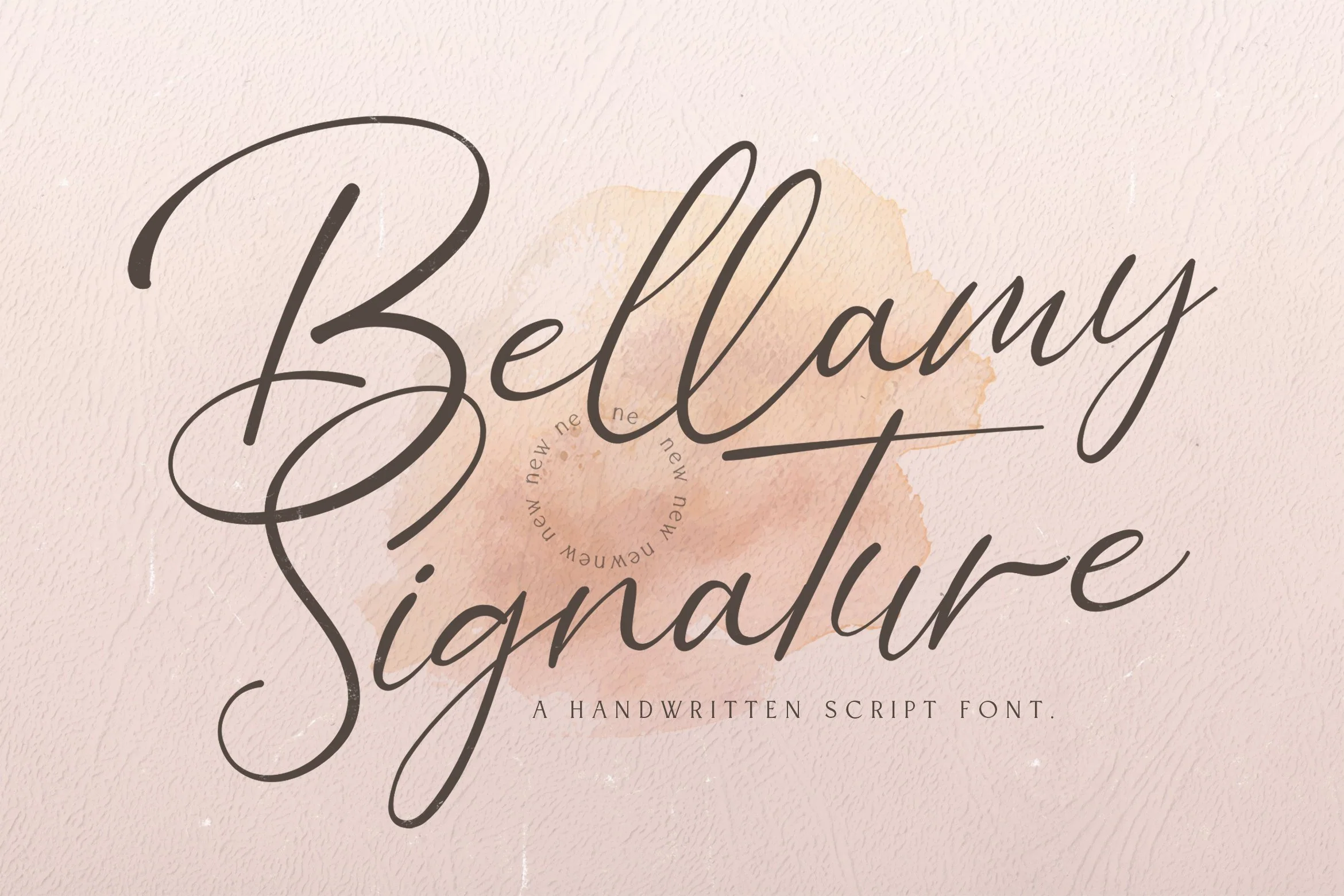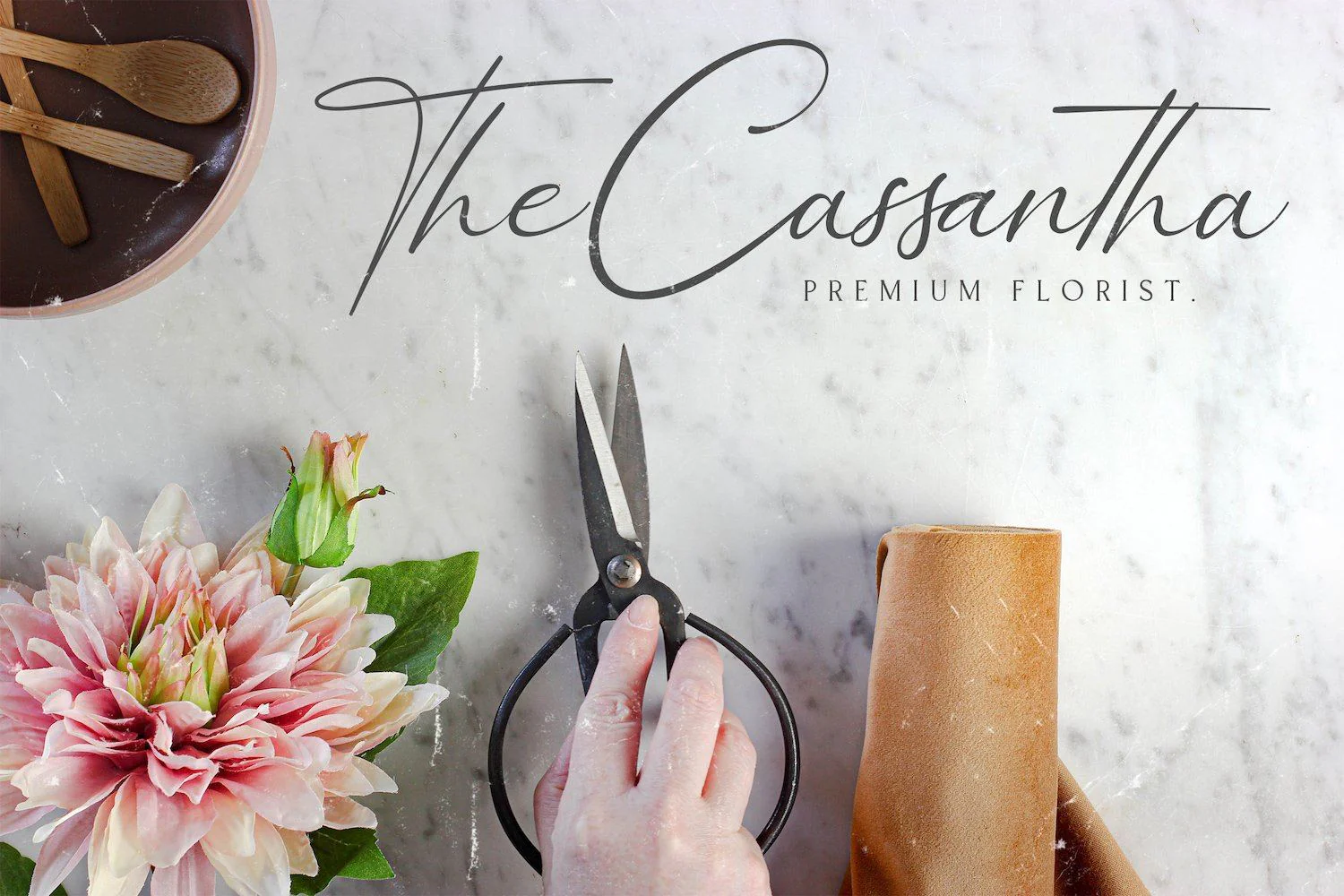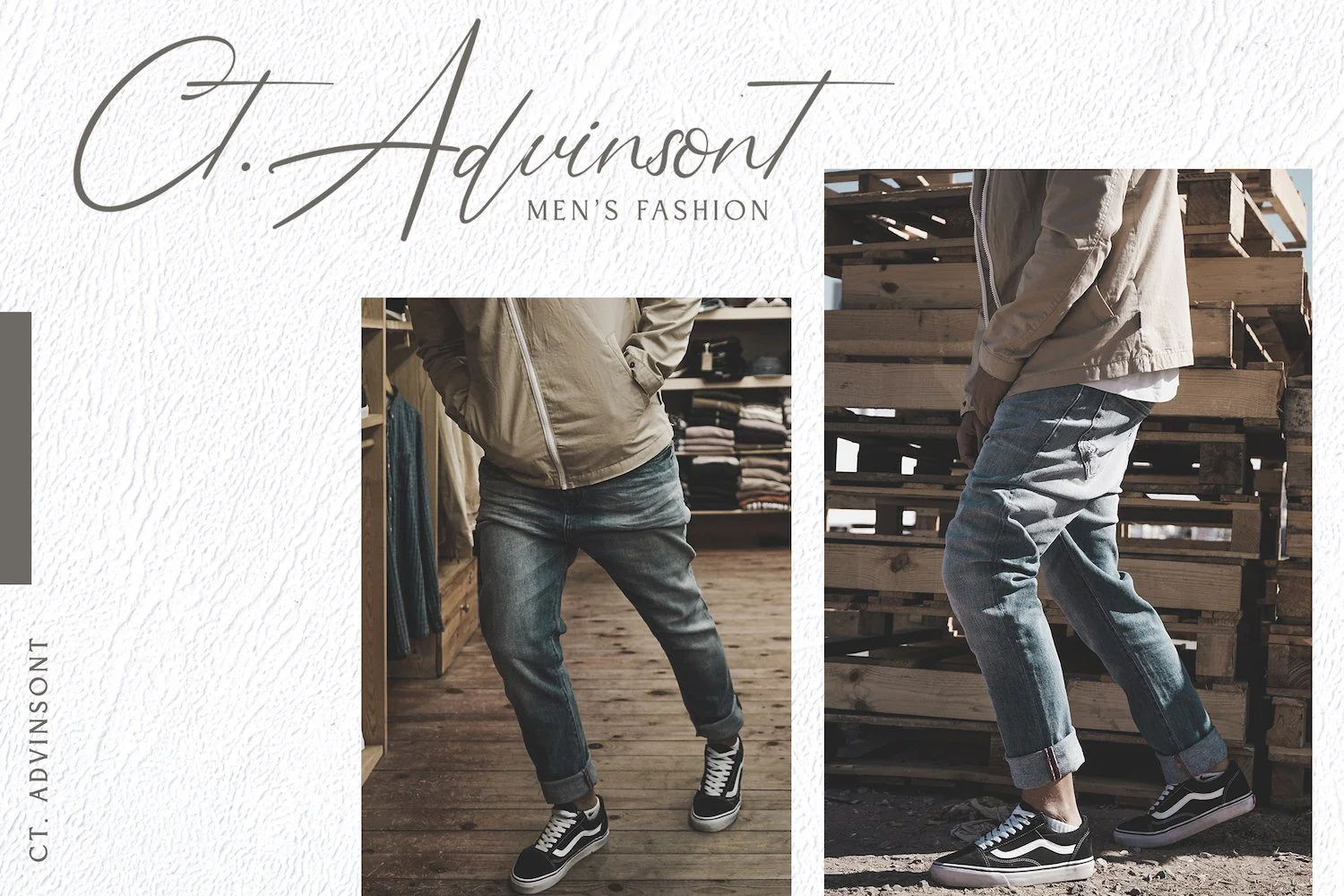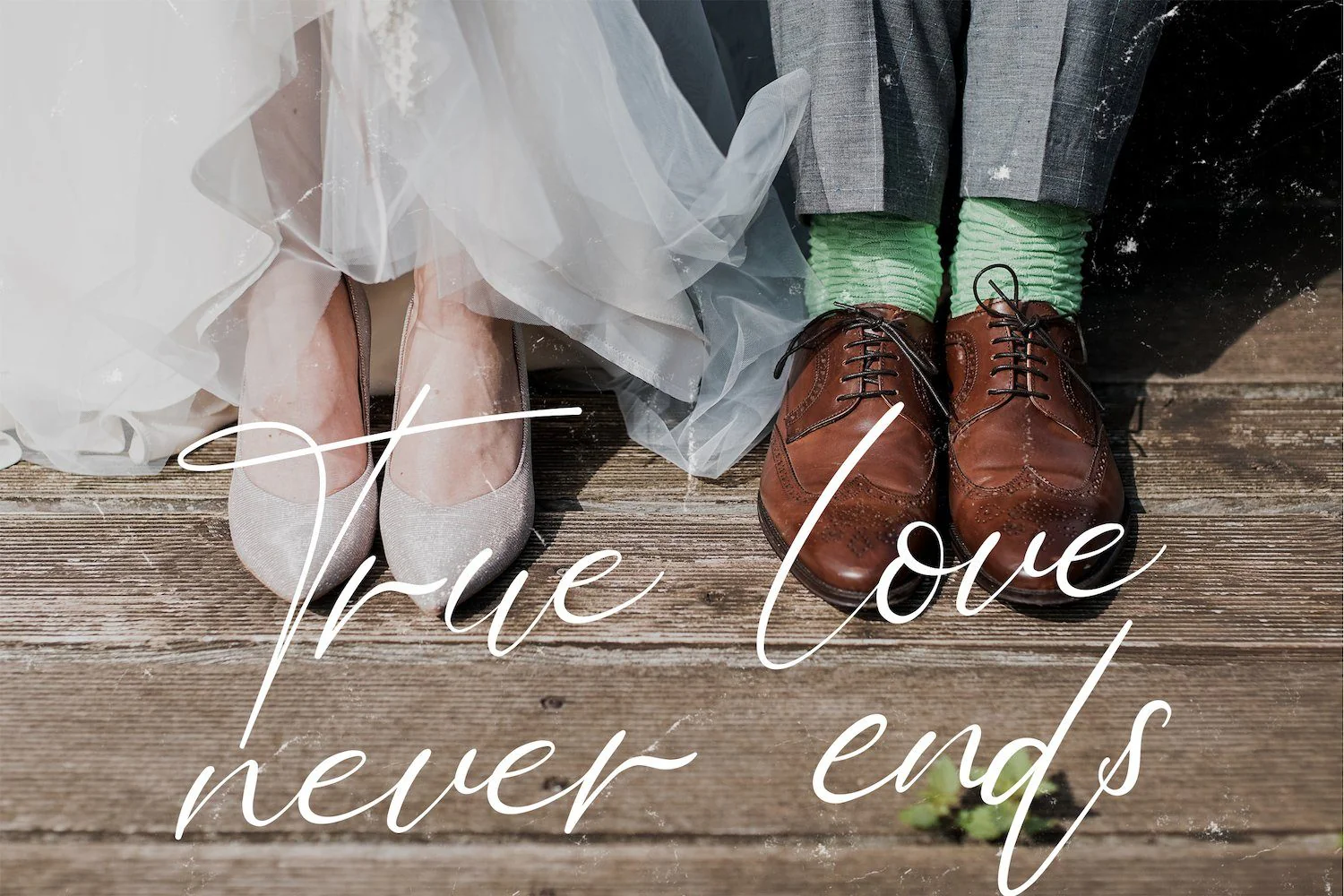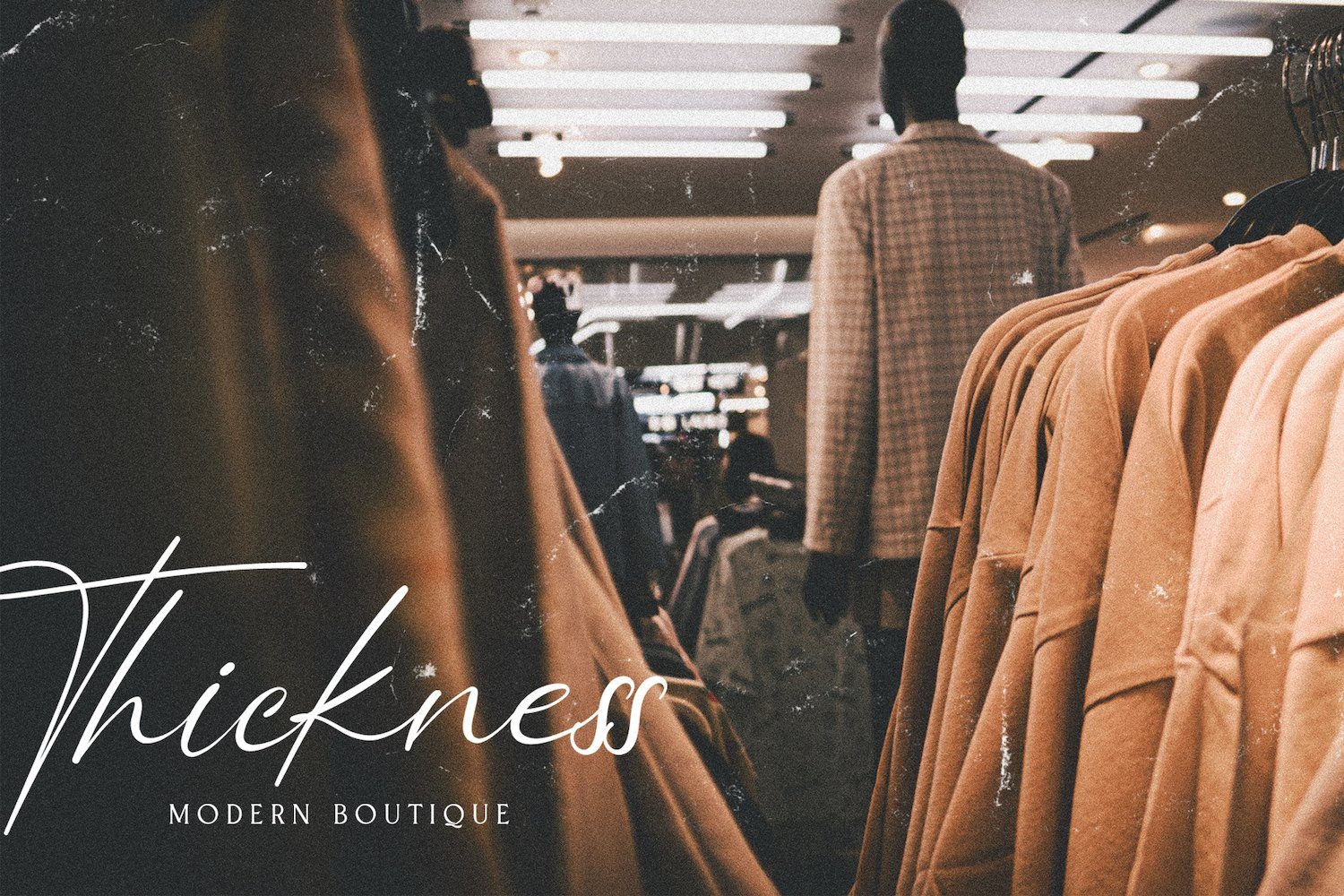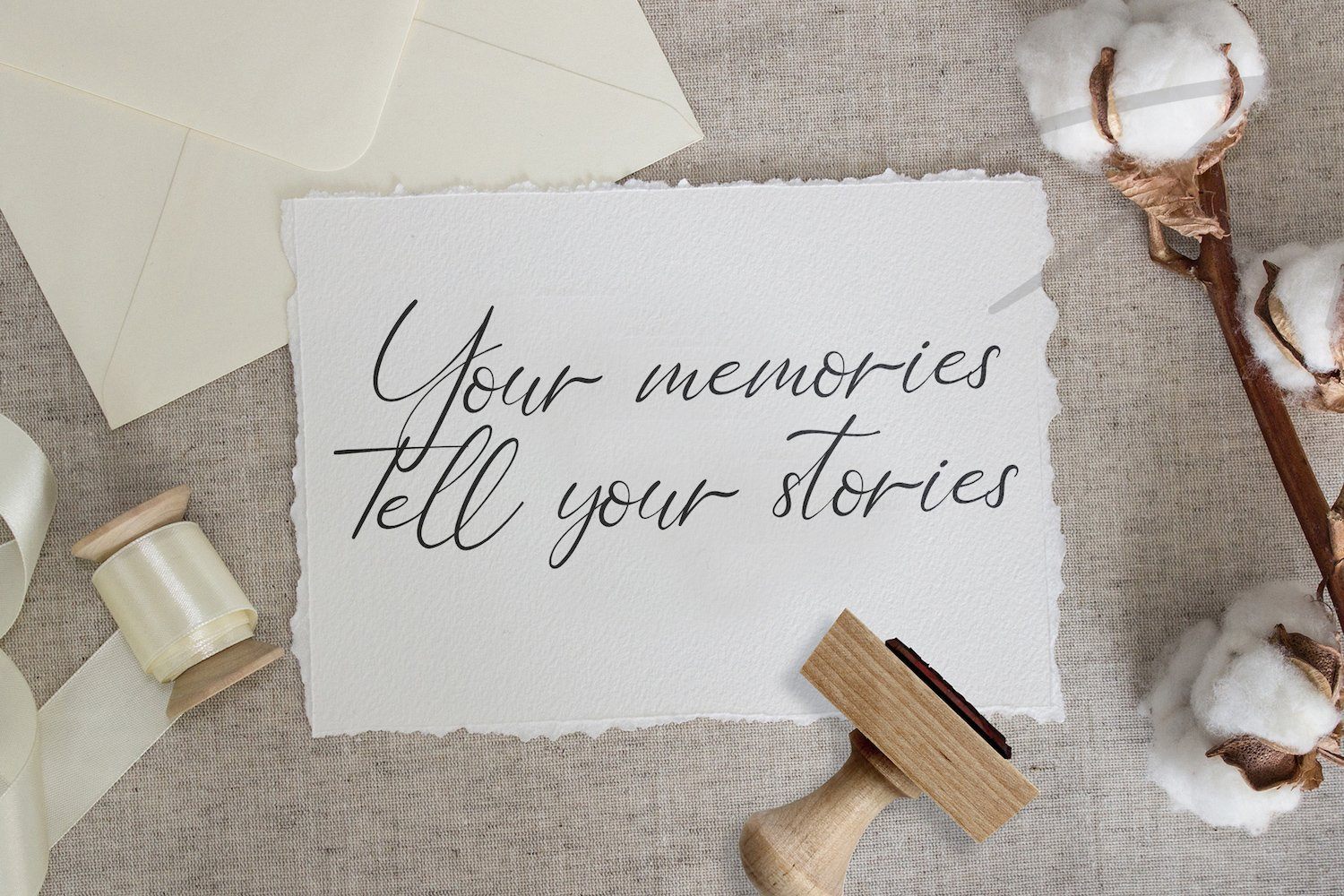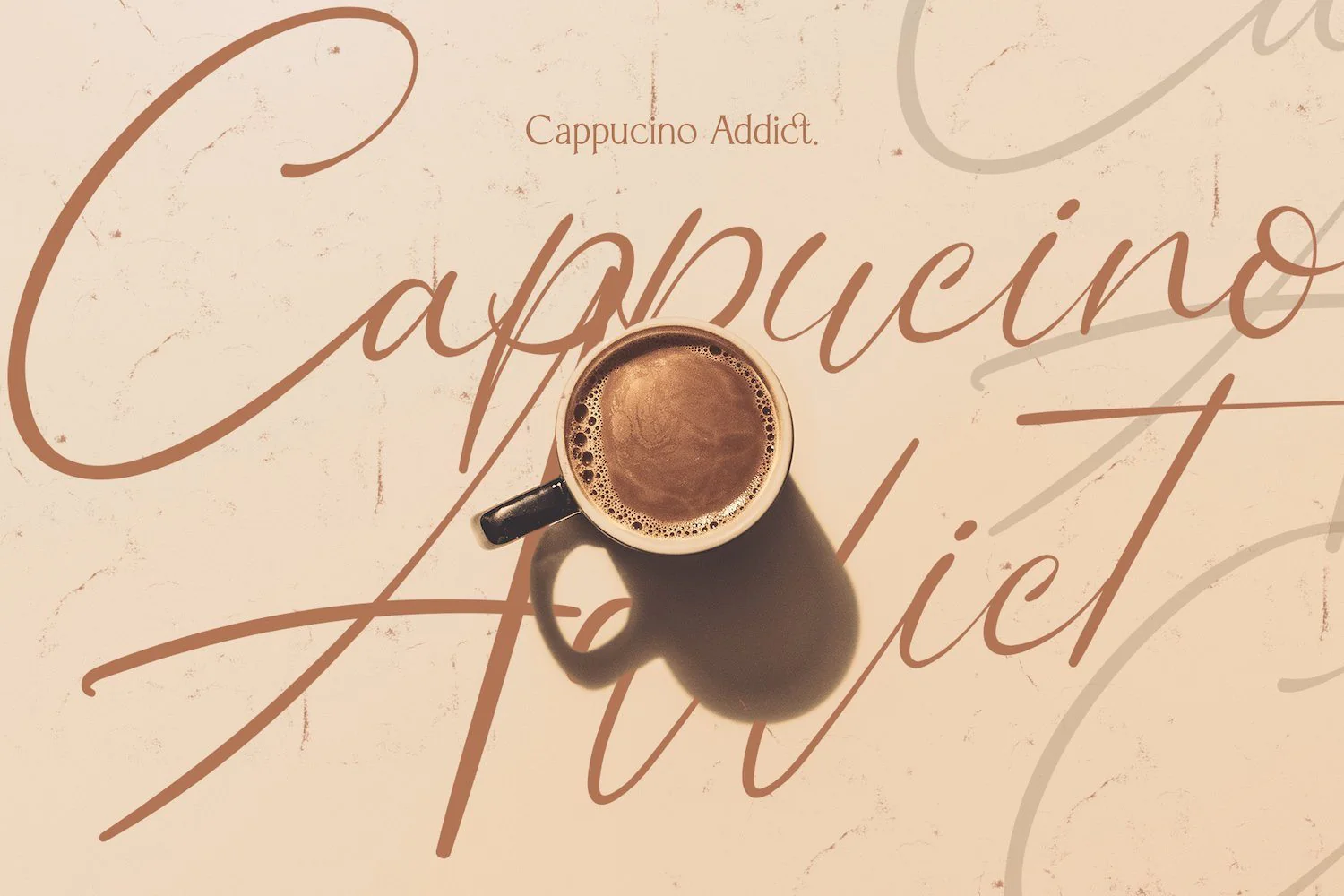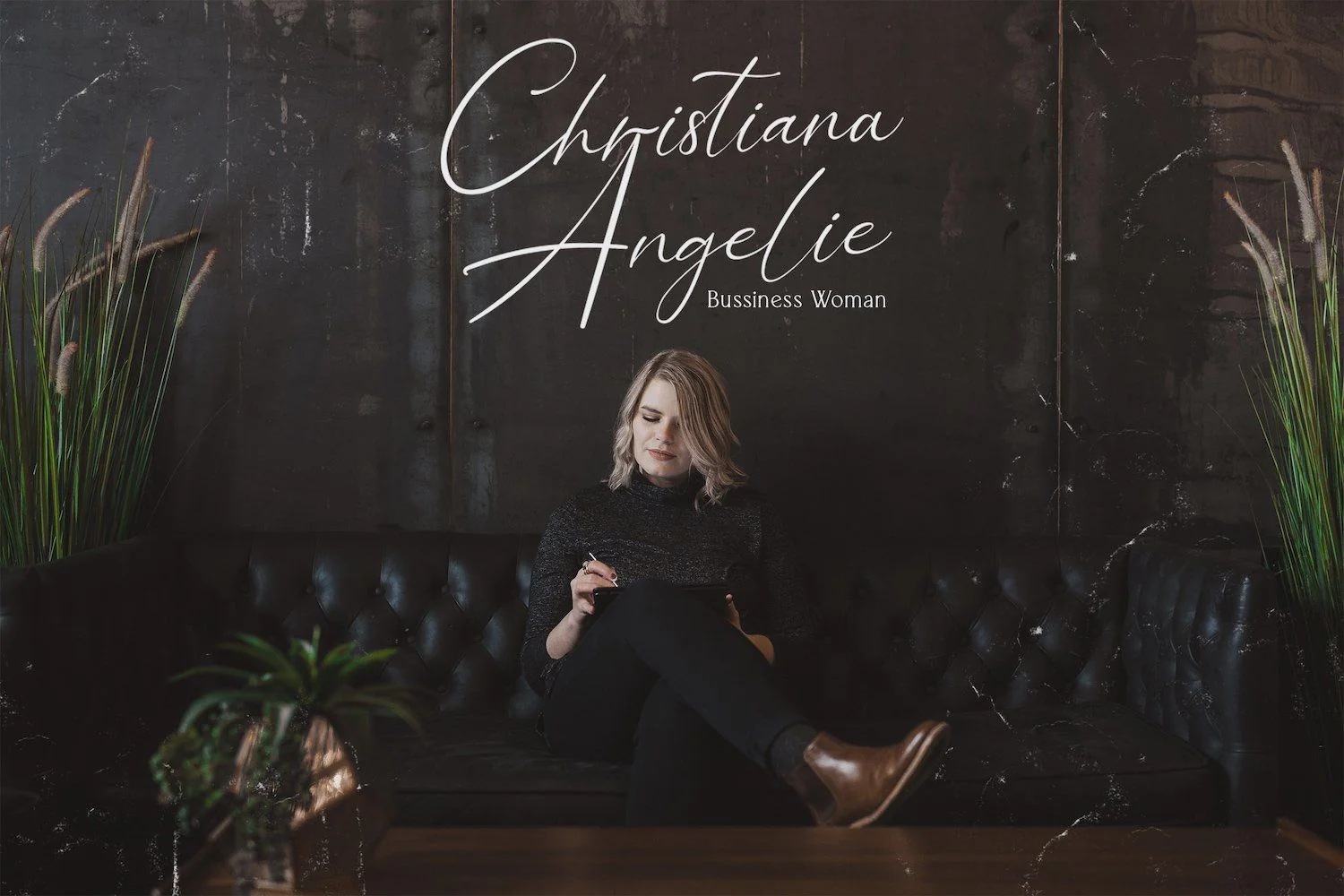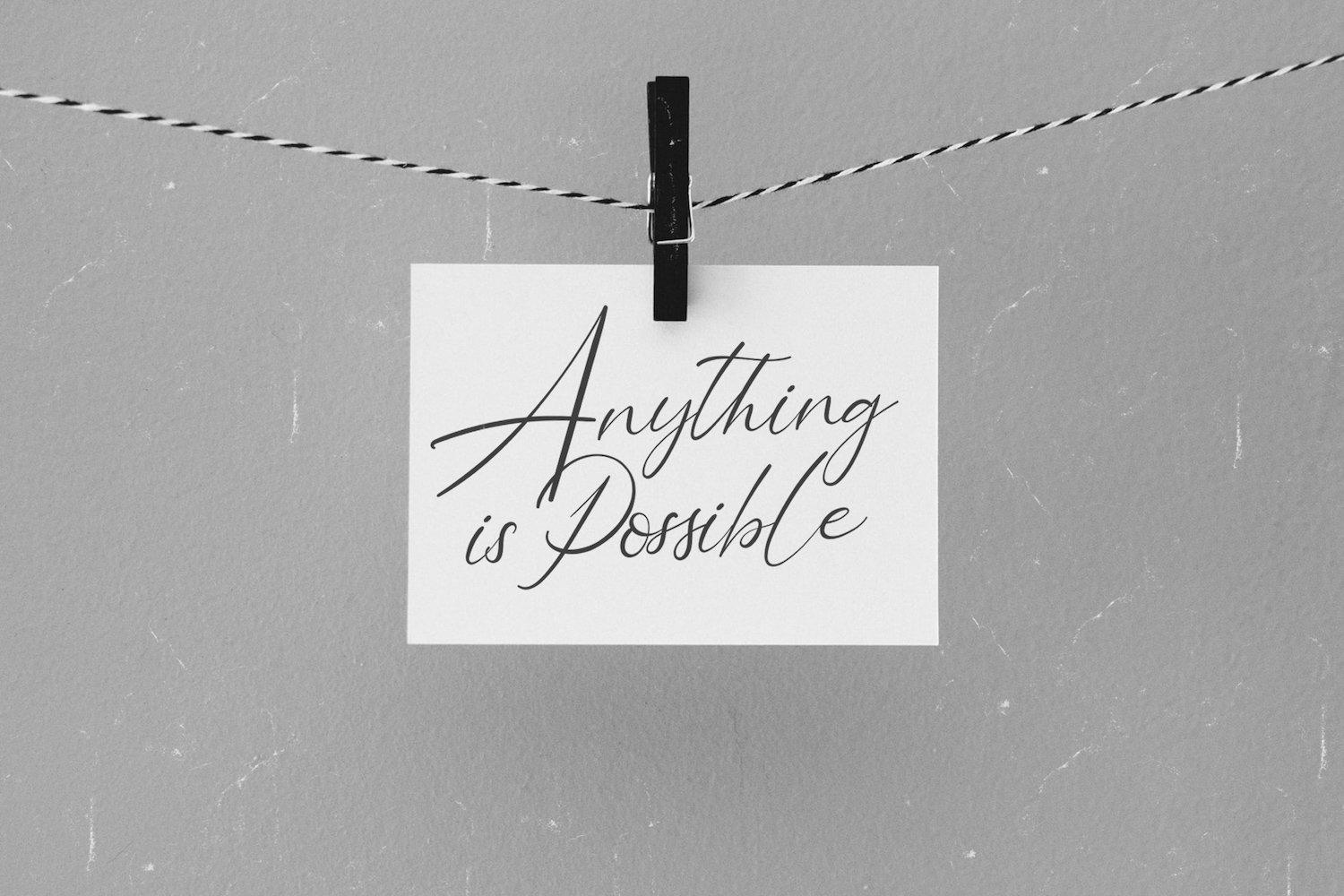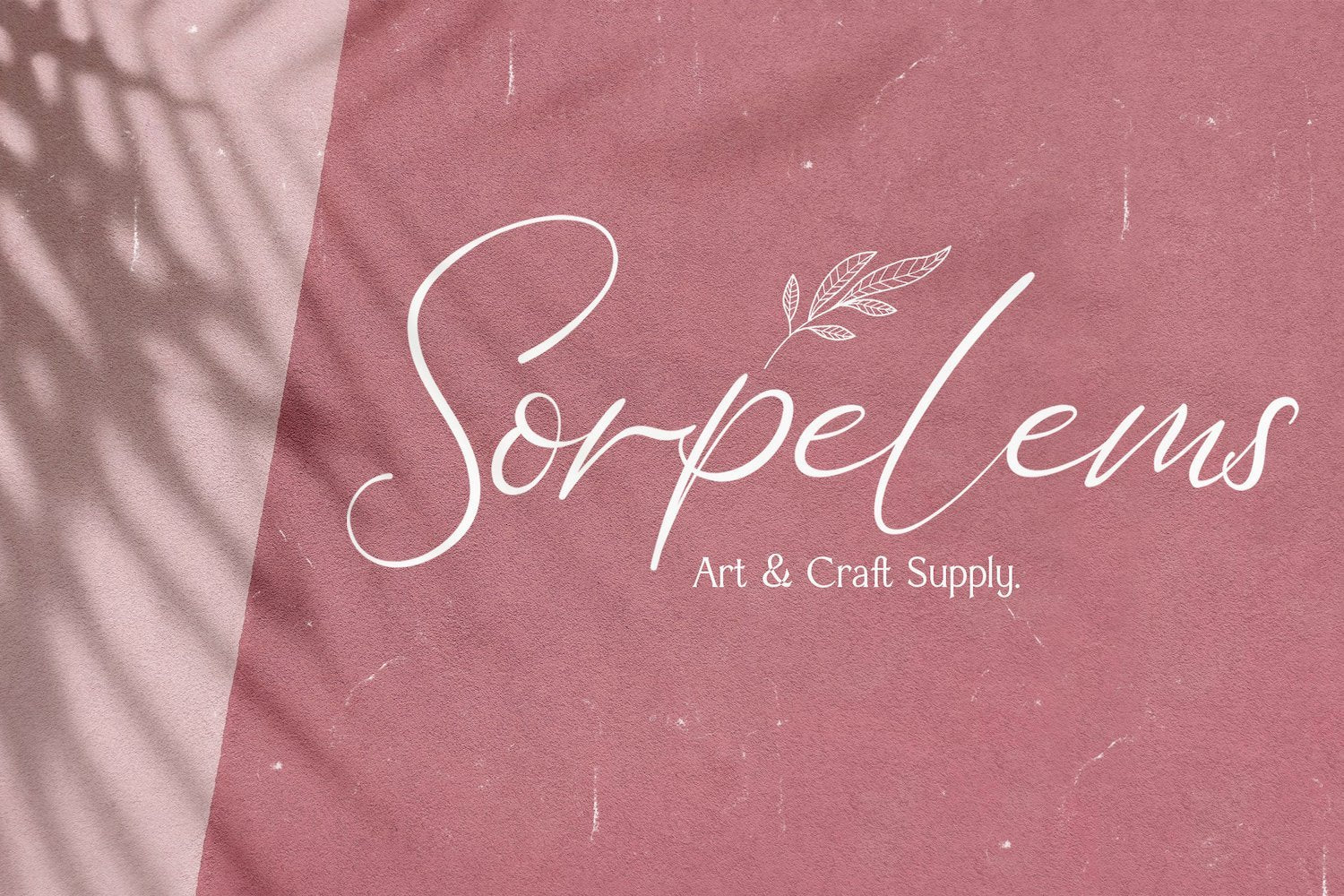
Bellamy Signature - Handwritten Font
Introducing Bellamy Signature - Handwritten Font
Bellamy Signature is an incredibly distinct, delicate and timeless handwritten font. It looks stunning on wedding invitations, thank you cards, quotes, greeting cards, logos, business cards and every other design which needs a handwritten touch.
Introducing Bellamy Signature - Handwritten Font
Bellamy Signature is an incredibly distinct, delicate and timeless handwritten font. It looks stunning on wedding invitations, thank you cards, quotes, greeting cards, logos, business cards and every other design which needs a handwritten touch.